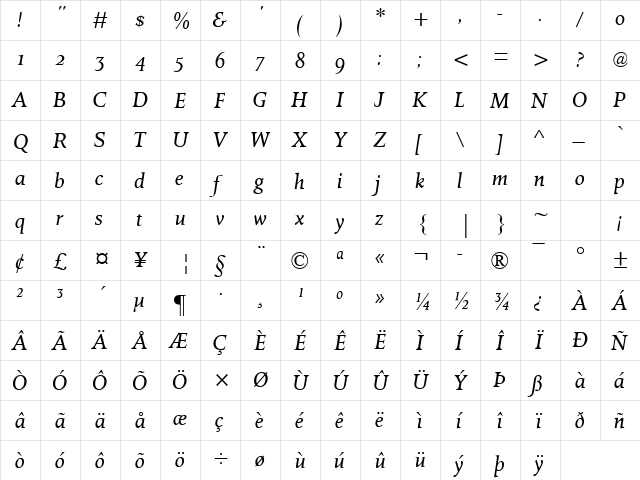
OctavianMT OsF Italic Regular
Design Context for OctavianMT OsF Italic Typeface
OctavianMT OsF Italic offers clean, dependable letterforms without strong stylistic allegiance, making it a practical choice for designers who need flexibility. The slanted form adds forward momentum and visual energy.
Pro Tip: Use OctavianMT OsF Italic for emphasis, pull quotes, and subheadings where its slanted energy can add rhythm to the layout.